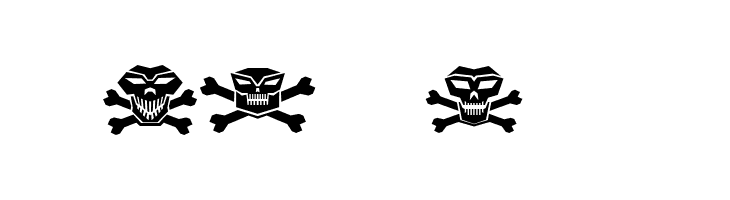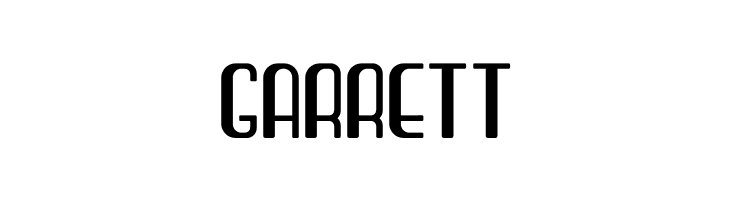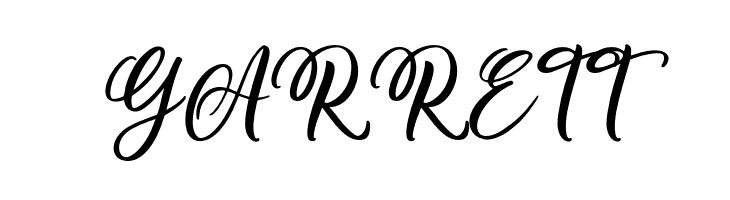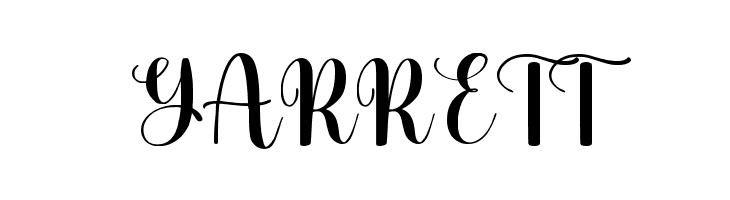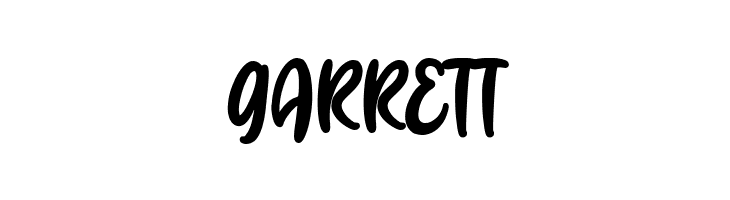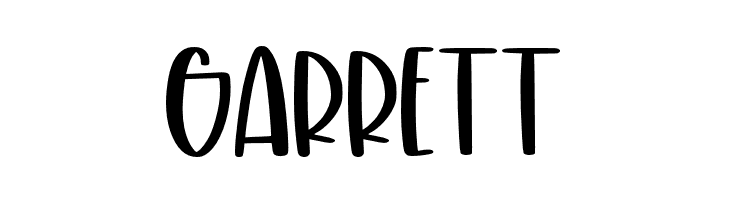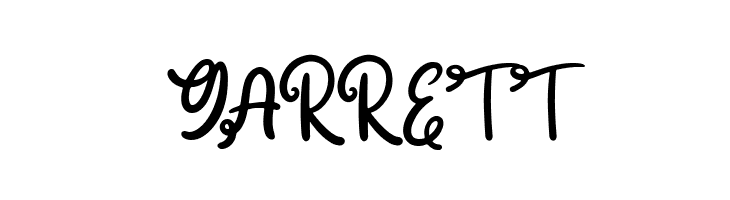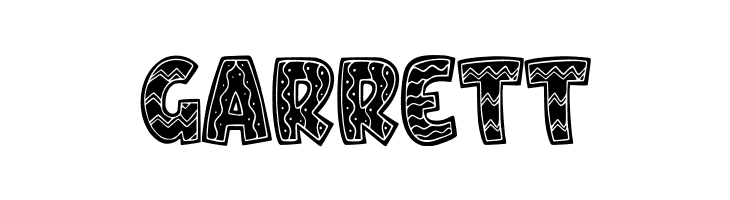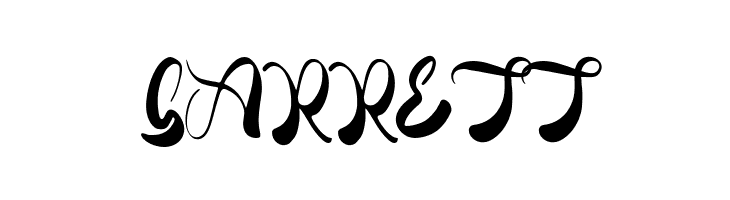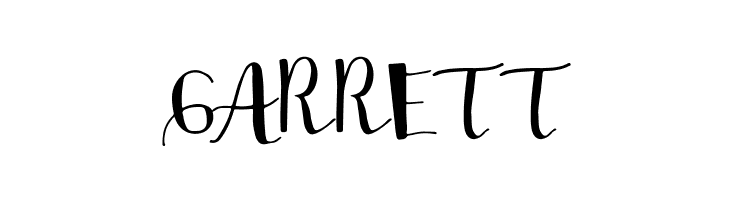
An abstract, sketch-like font with chaotic line work and a hand-drawn feel.
A bold, cracked texture font with a rugged, edgy appearance.
A bold, geometric font with sharp angles and a futuristic design.
A playful, handwritten font with smooth, consistent strokes.
A playful, hand-drawn font with a whimsical and casual style.
A modern, geometric font with rounded edges and a clean, streamlined appearance.
A bold, rounded, and playful font with a handcrafted feel.
A playful, handwritten font with a dynamic and informal style.
A dynamic, cursive handwritten font with a fluid and expressive style.
A decorative floral dingbat font with diverse botanical icons.
A decorative cursive font with elegant loops and swashes.
A bold, playful, and handwritten-style font with rounded edges.
A bold, angular font with a modern, geometric style.
A playful, eclectic display font with varied styles and artistic elements.
A flowing, cursive script font with an elegant italic style.
A playful and artistic script font with fluid strokes and dynamic style.
A playful, festive font with decorative, handcrafted elements.
A playful, hand-drawn font with bold, rounded characters.
A playful, handwritten font with bold, curvaceous letters and a whimsical style.
A bold, playful handwritten font with rounded, whimsical letterforms.
A playful, cursive script font with elegant, flowing strokes.
A flowing, cursive font with elegant curves and interconnected characters.
A bold, expressive handwritten font with brush-like strokes.
A bold, playful font with rounded edges and a hand-drawn feel.
A bold, textured font with a distressed, grunge-like style.
An elegant, flowing script font with graceful curves and decorative swashes.
A geometric, angular font with a modern, tech-inspired design.
A bold and edgy skull and crossbones motif design with intricate details.
A bold, geometric font with an industrial and mechanical style.
A playful, hand-drawn font with bold, irregular strokes and a whimsical style.
A bold, slanted font with dynamic strokes and a modern, energetic style.
A casual, handwritten script font with fluid, connected letters.
A clean, geometric sans-serif font with balanced spacing and modern appeal.